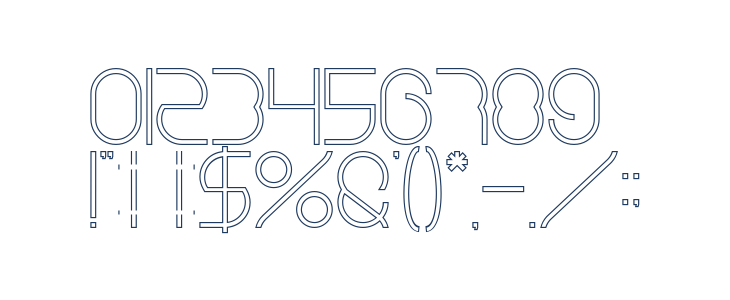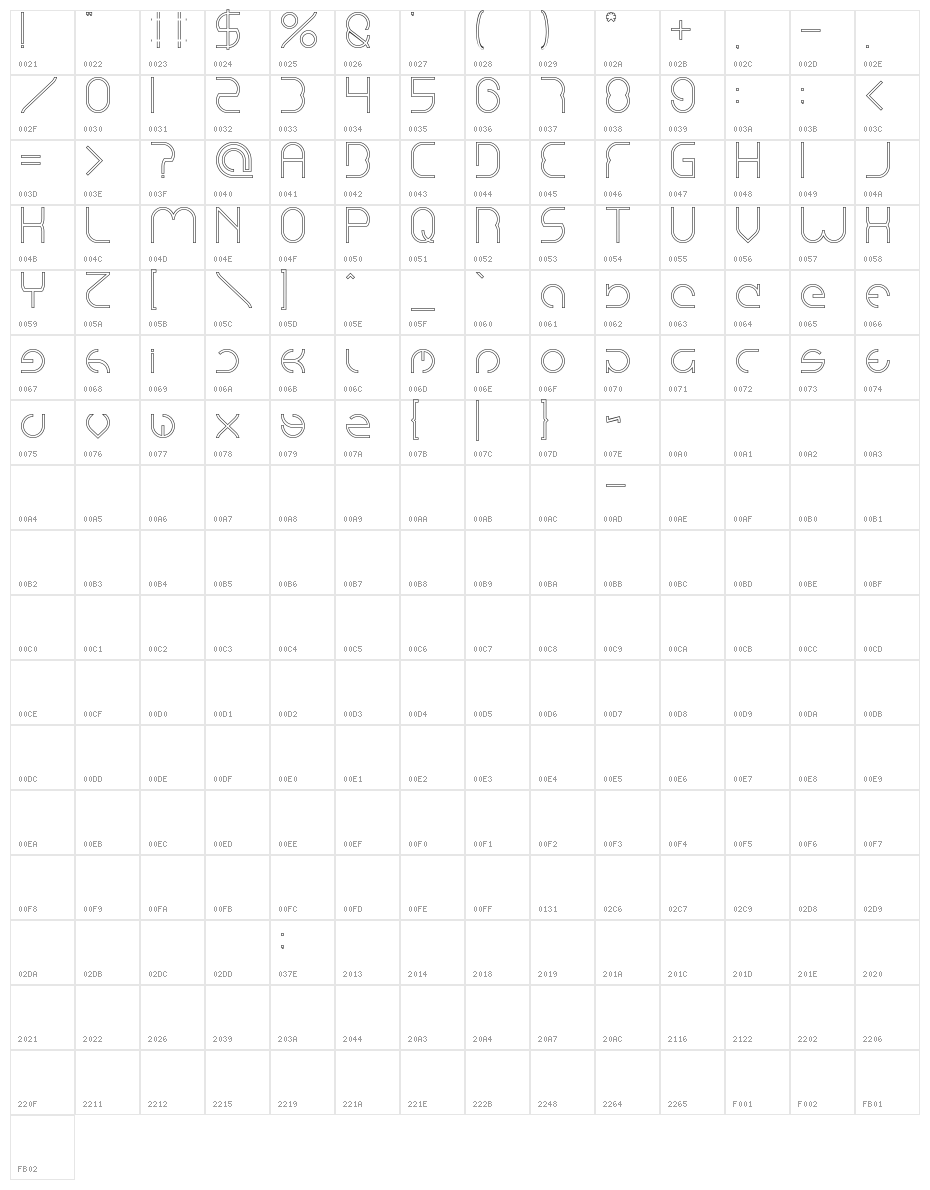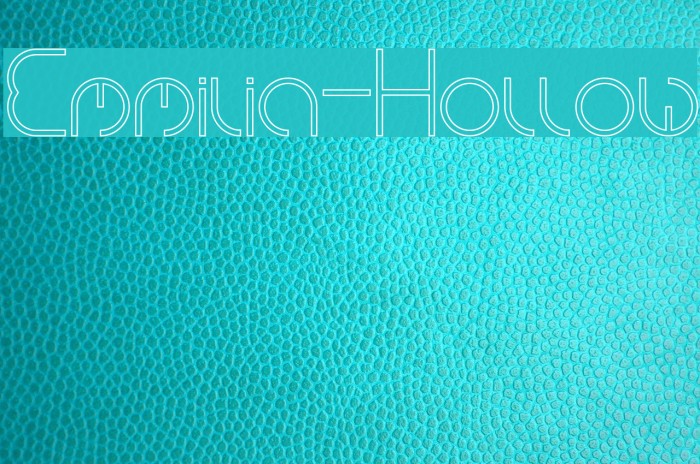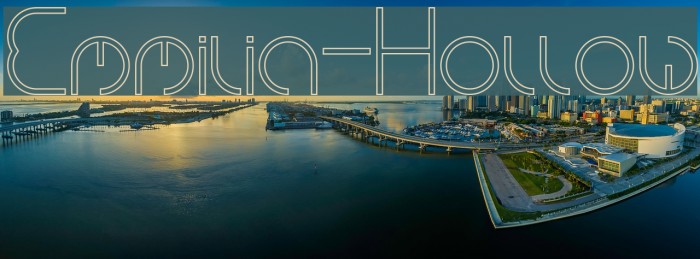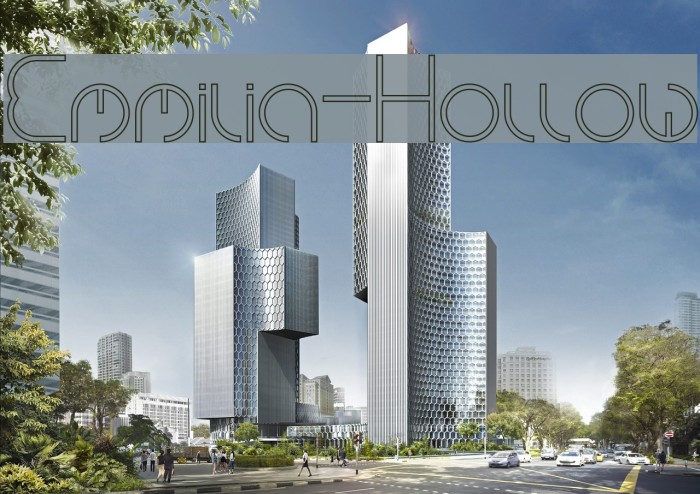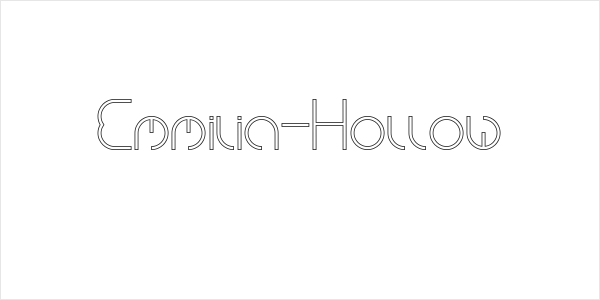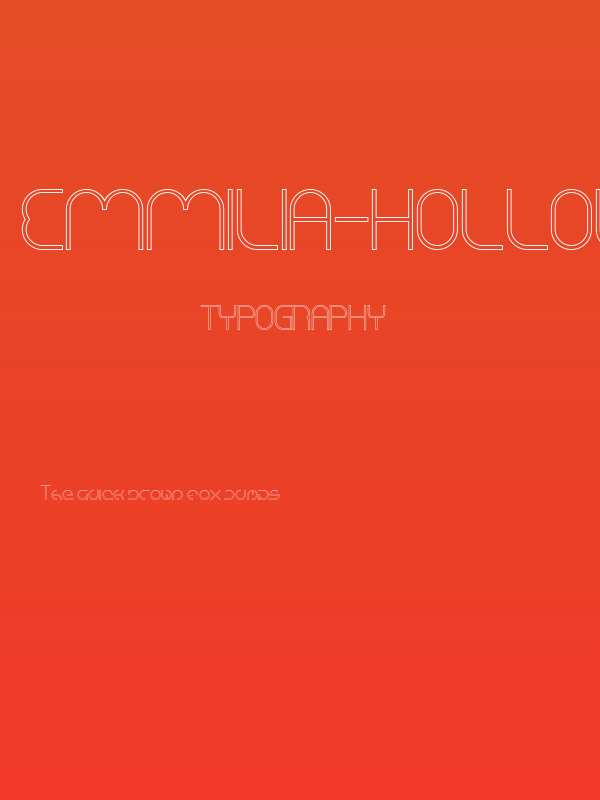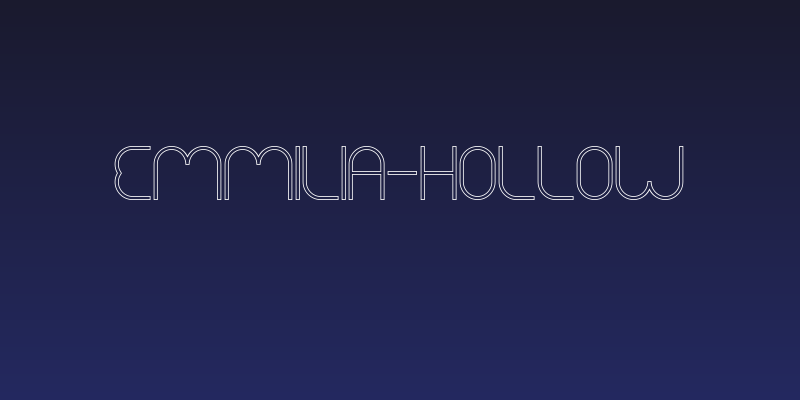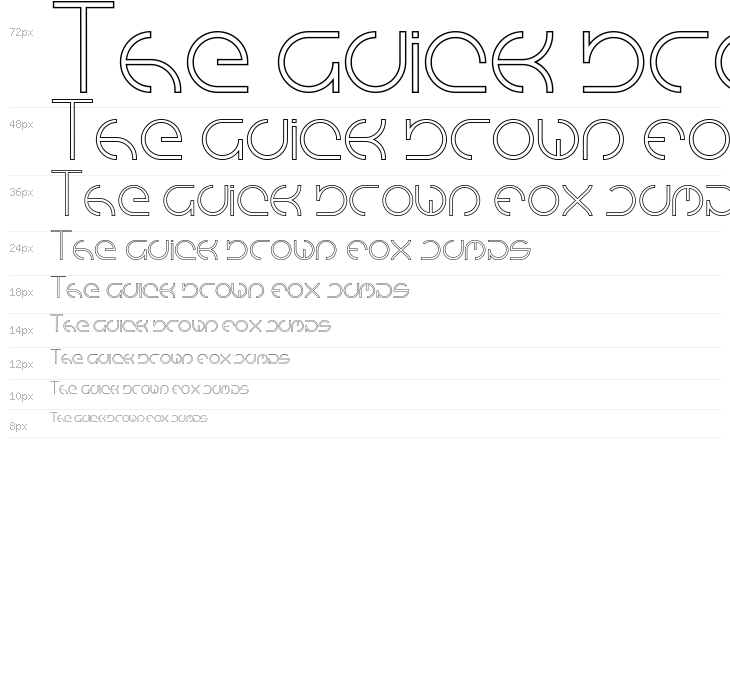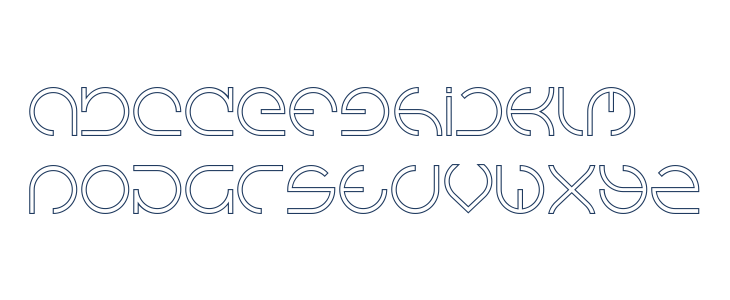
Emmilia-Hollow Font
Emmilia-Hollow Description
This font features a unique hollow design with clean, geometric lines and rounded edges. Each character is outlined, creating a modern and futuristic appearance. The uppercase and lowercase letters maintain a consistent style, with a focus on symmetry and minimalism. Numbers and special characters follow the same design principles, ensuring uniformity across the font set. The open spaces within the characters give it a light and airy feel, making it suitable for creative and contemporary projects.
EMMILIA-HOLLOW UPPERCASE
EMMILIA-HOLLOW LOWERCASE
| Proposed Projects | Ideal for branding, logos, posters, and digital media where a modern and futuristic look is desired. |